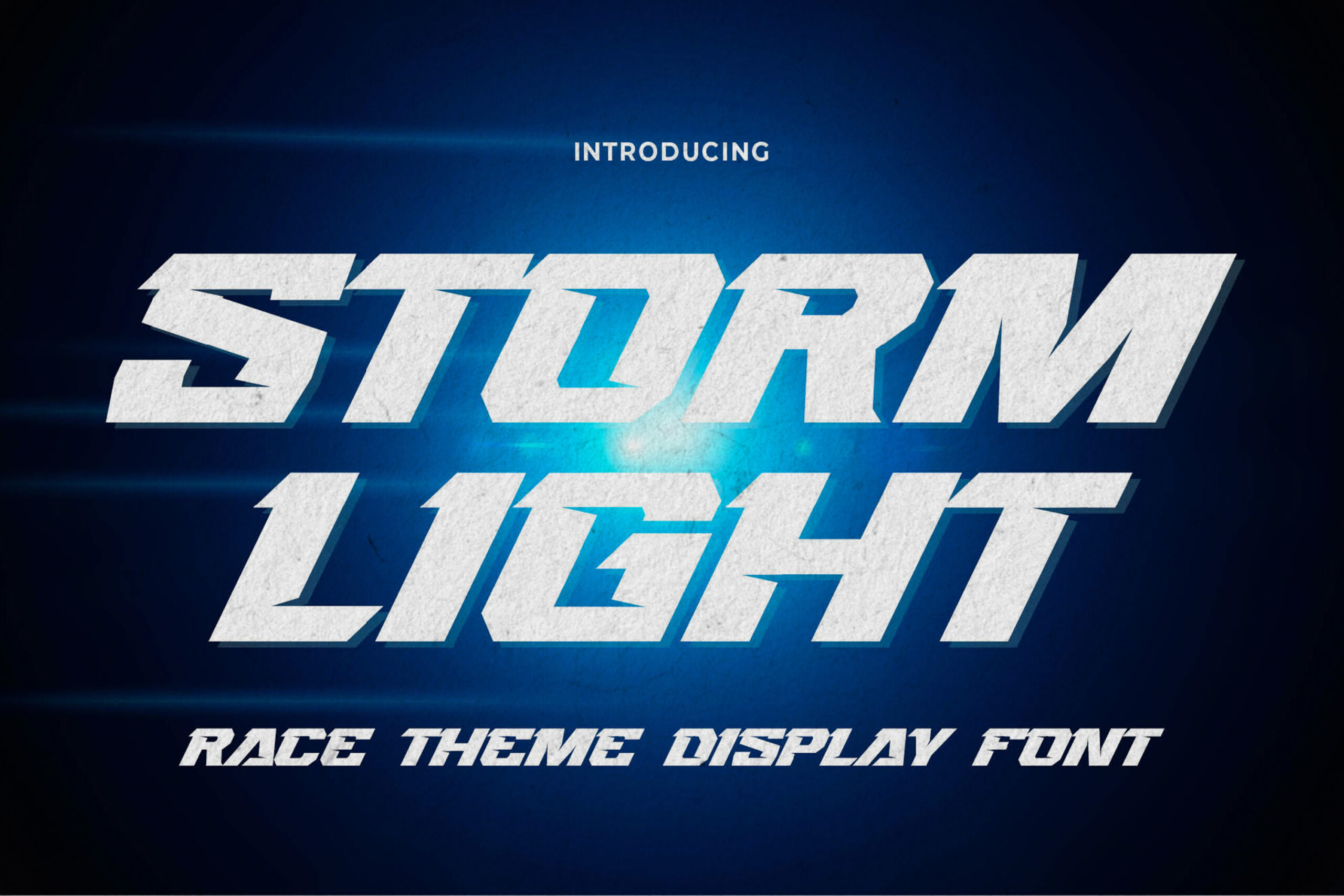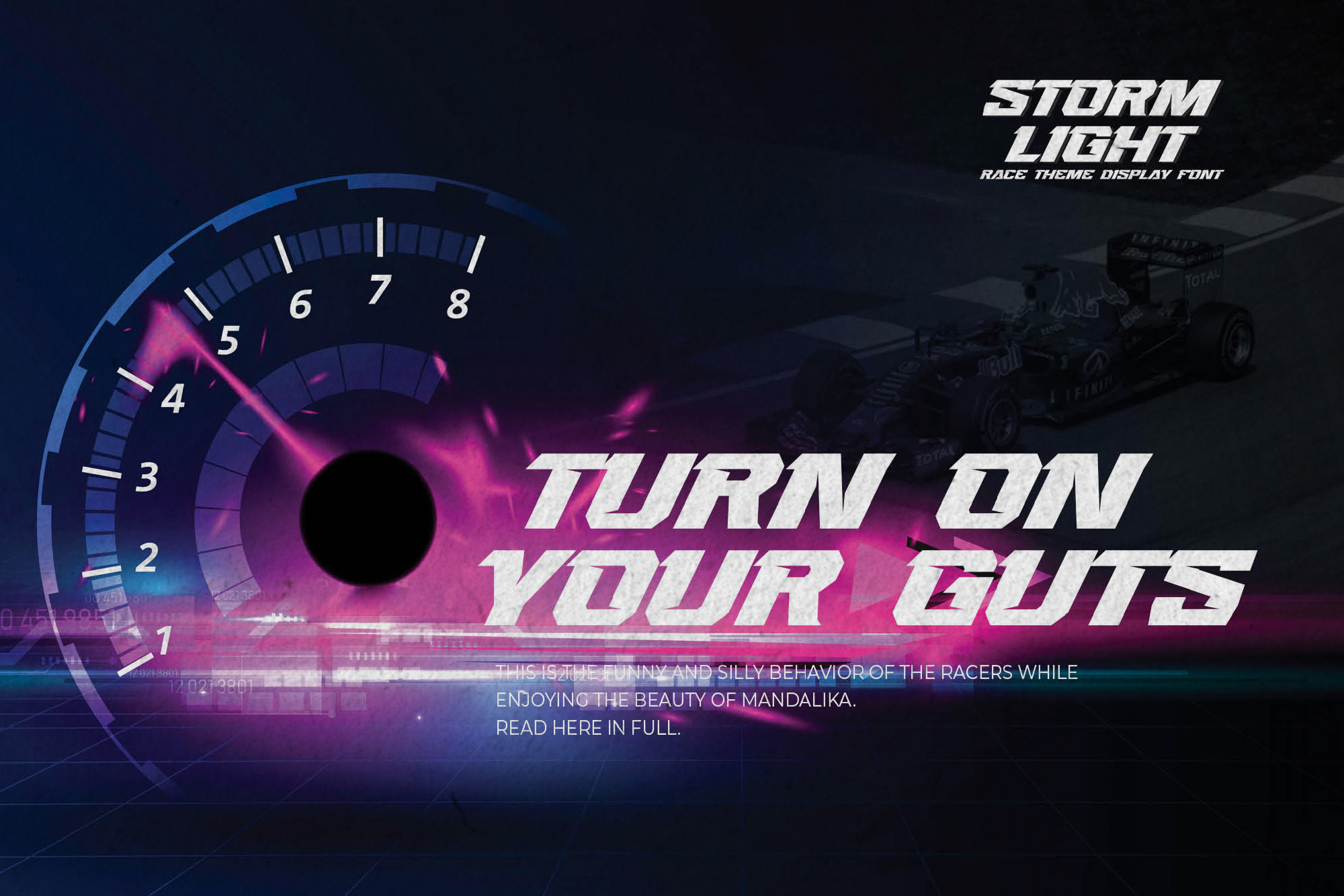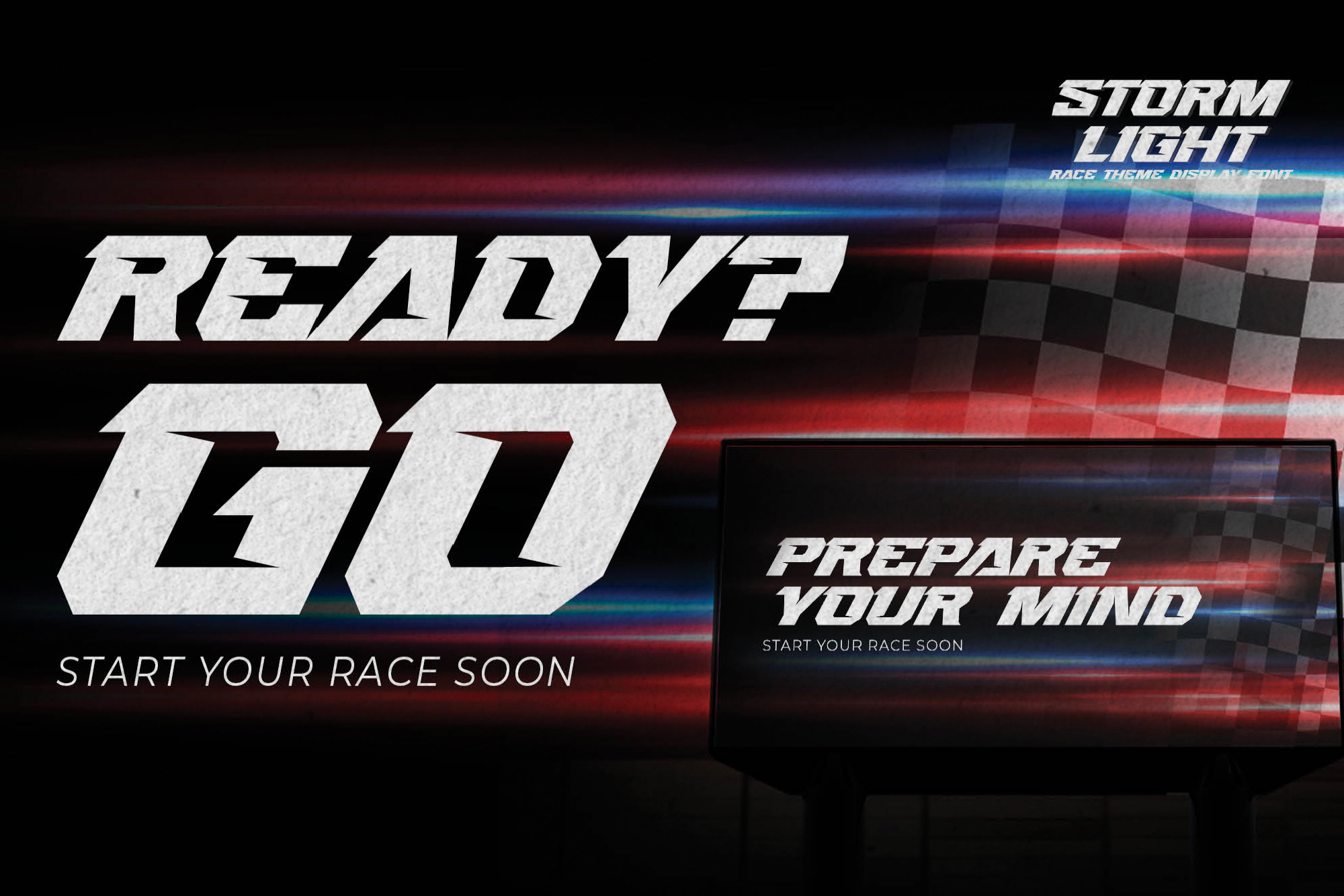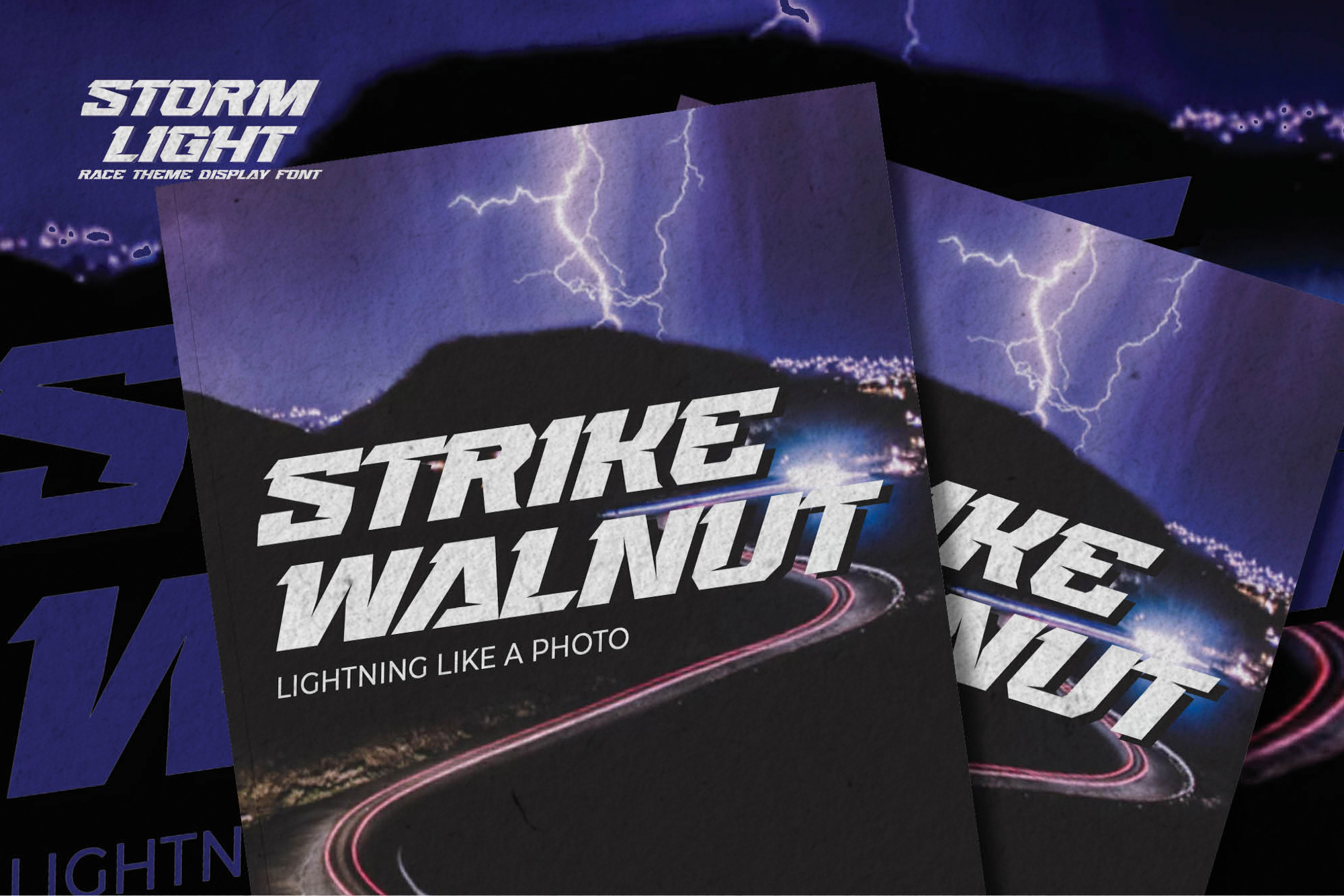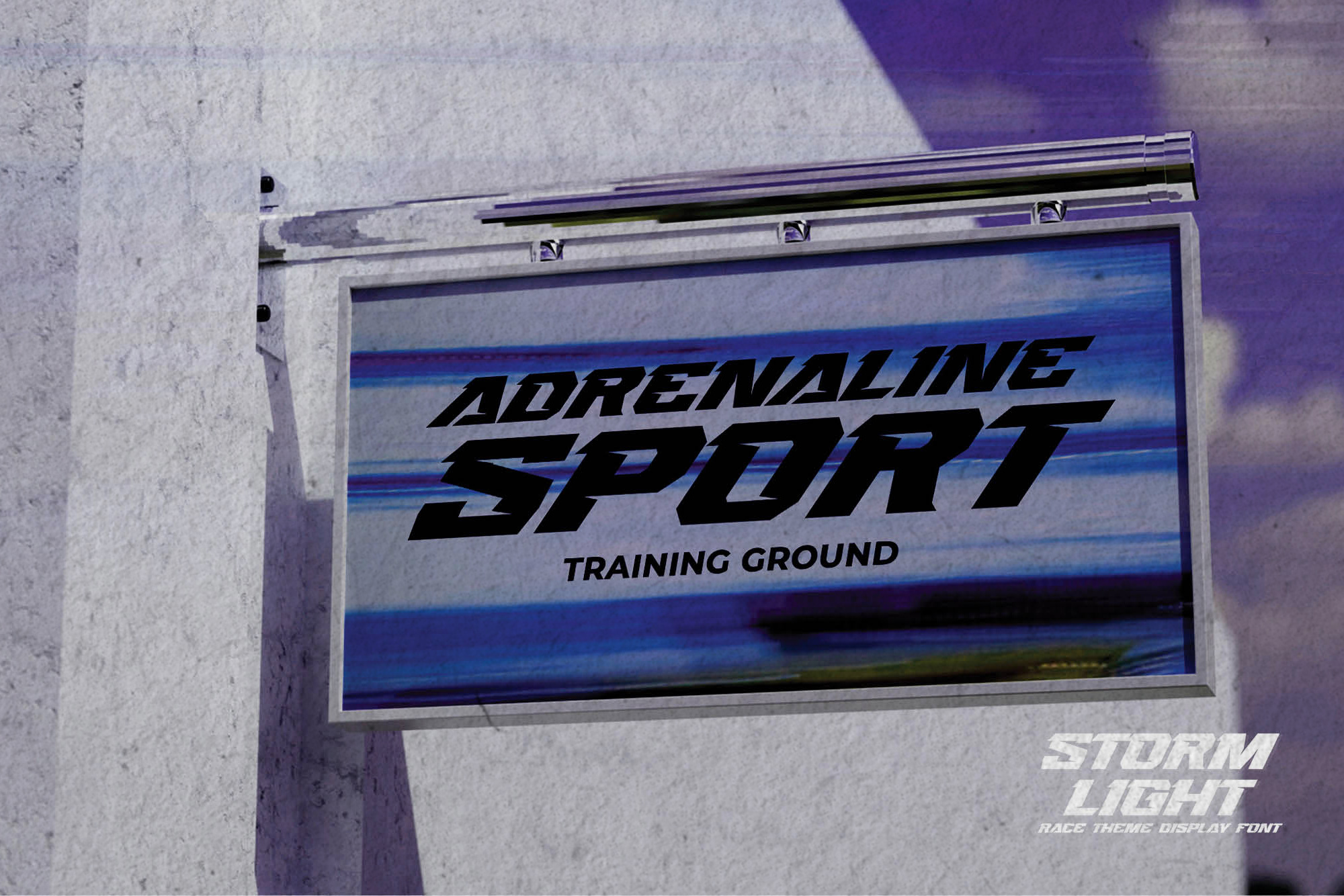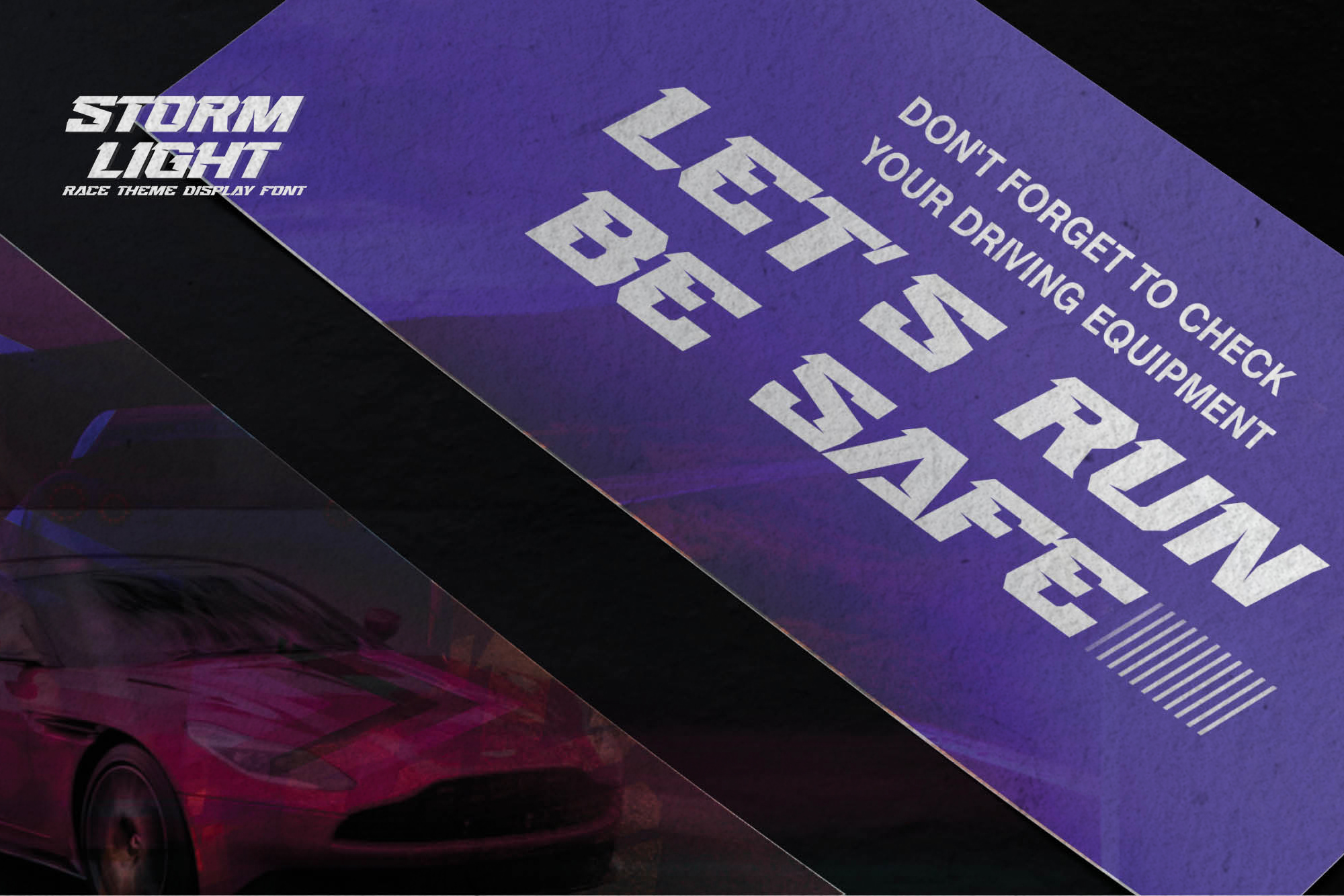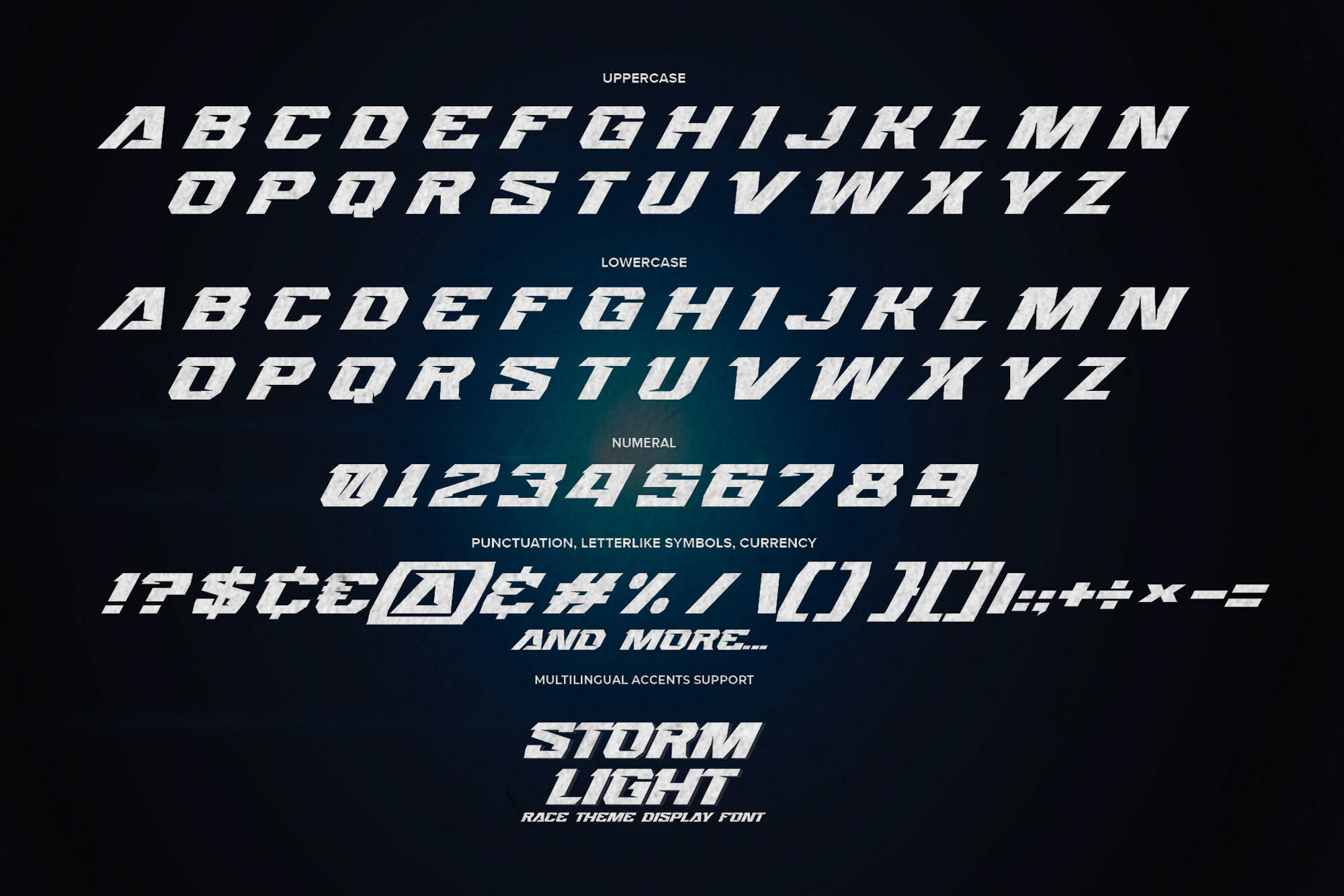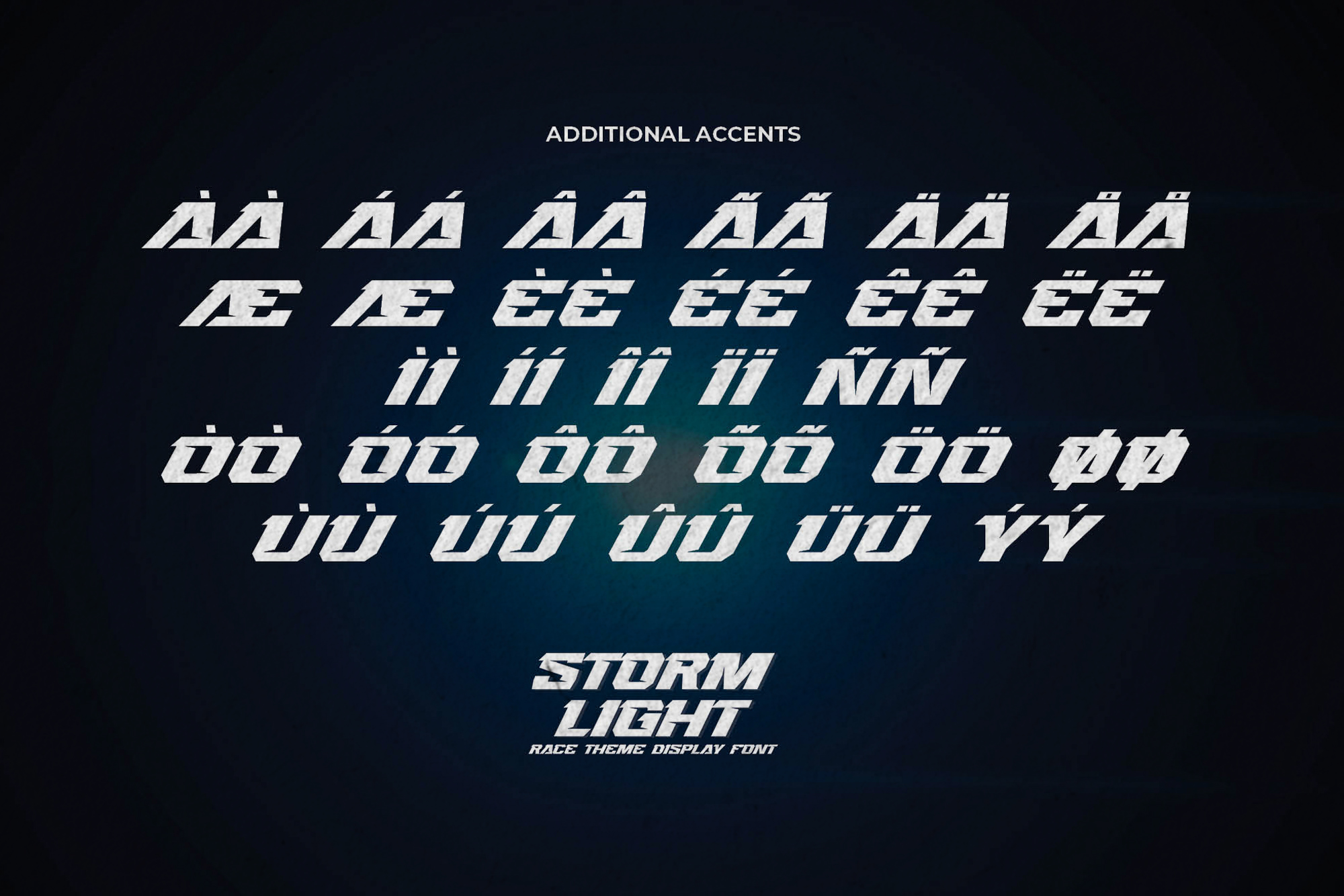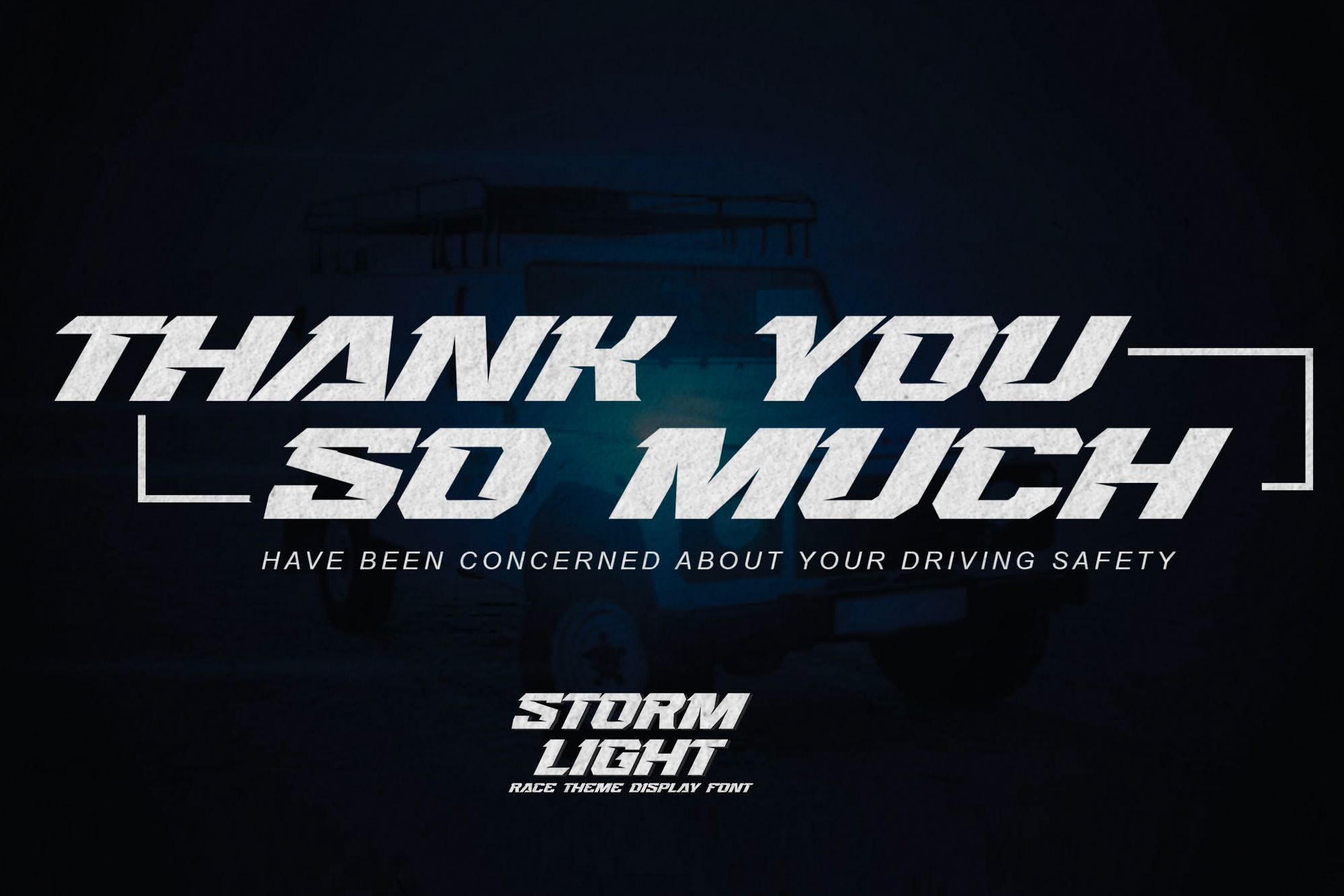
STORMLIGHT – Race Theme Display Font
STORMLIGHT – Race Theme Display Font, modern style and dramatic movement that is written casually and quickly.
The best for labels, poster, project designs look modern, authentic and unique. It’s perfect for labels, quotes, posters, DIY projects, branding, packaging, greeting cards, websites, photography overlays, signs, scrapbooking, tags and so much more!  That is why STORMLIGHT has a textured, and strong characteristic more natural look.